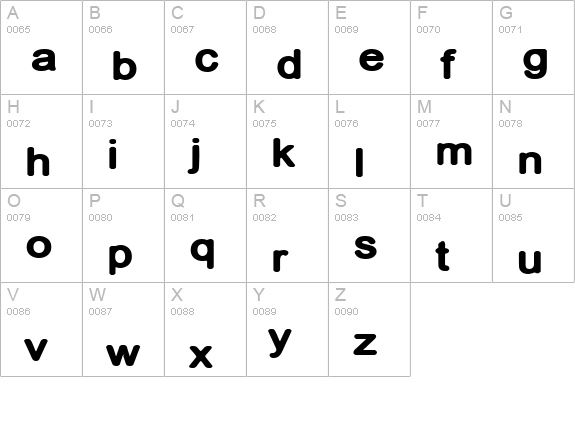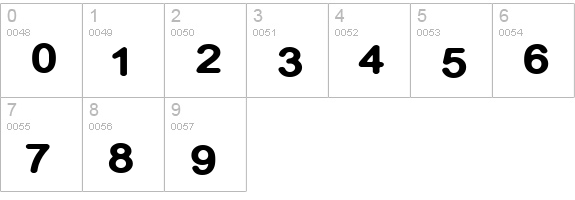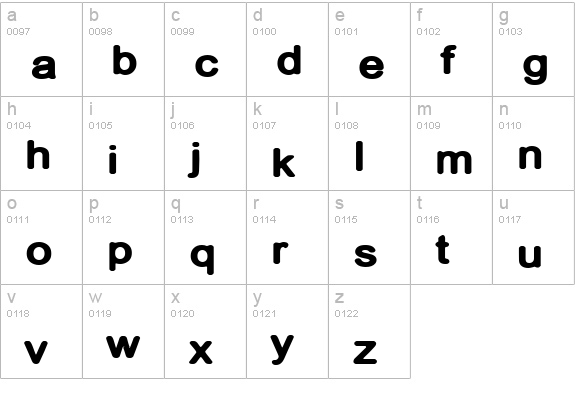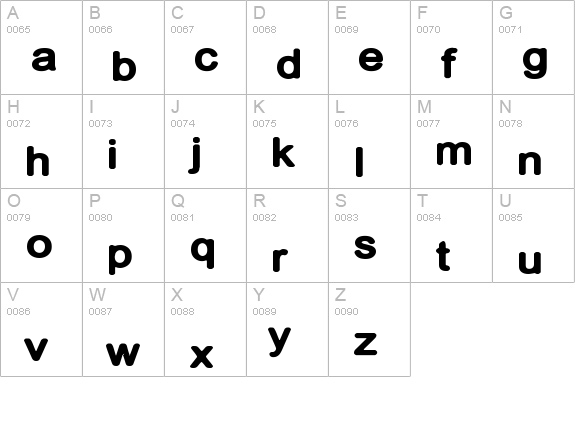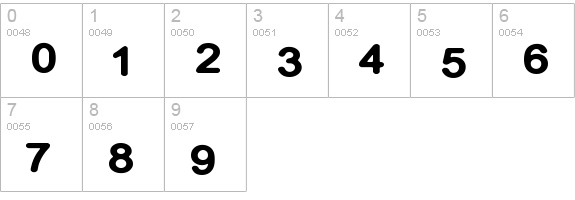
DeeDee Font Details
DeeDee font is a charming and whimsical typeface that will add a touch of playfulness to any design project. Its unique and quirky style makes it perfect for branding, invitations, posters, and more. With its smooth curves and fun details, DeeDee font is sure to make your text stand out and capture attention. The best part? DeeDee font is completely free to download at FontsMarket.com. This means you can add this delightful font to your collection without any cost. Don't miss out on the opportunity to enhance your designs with DeeDee font today!